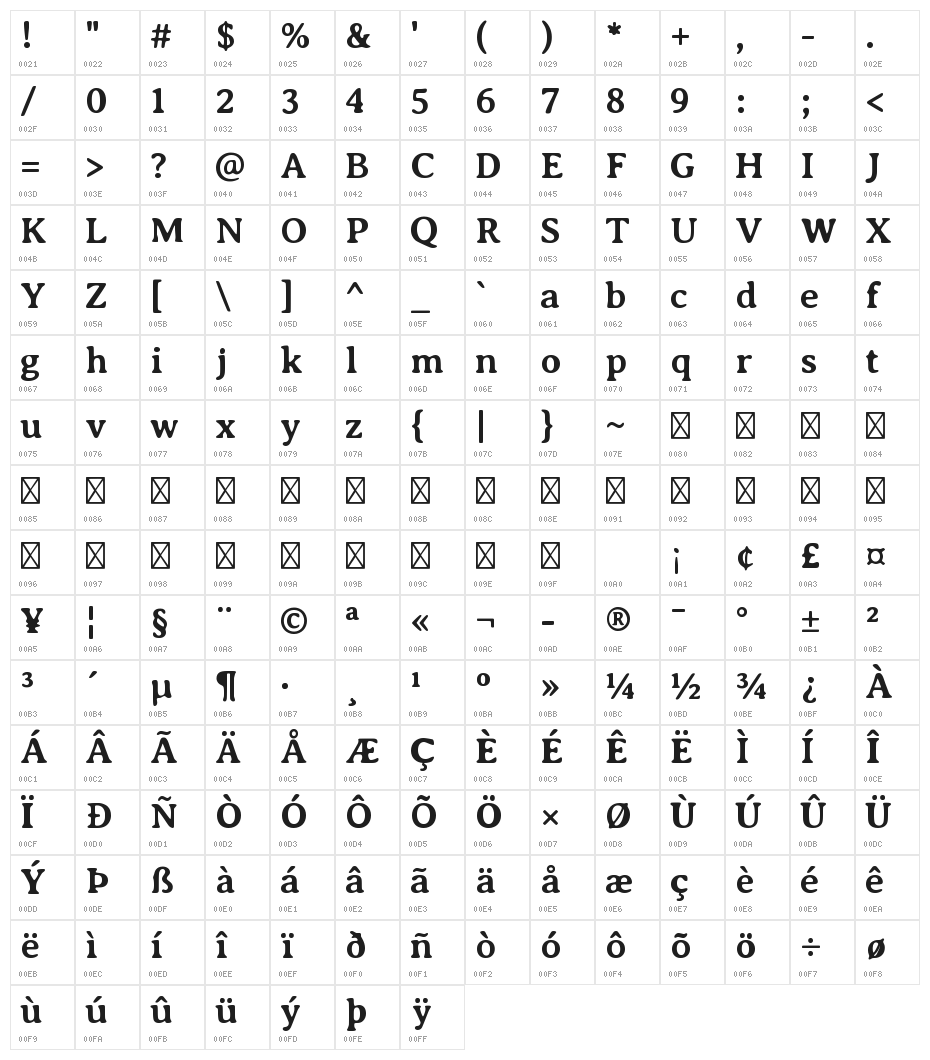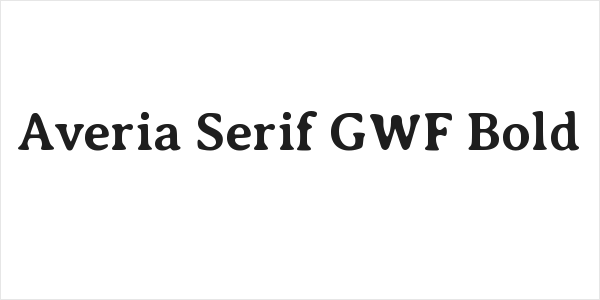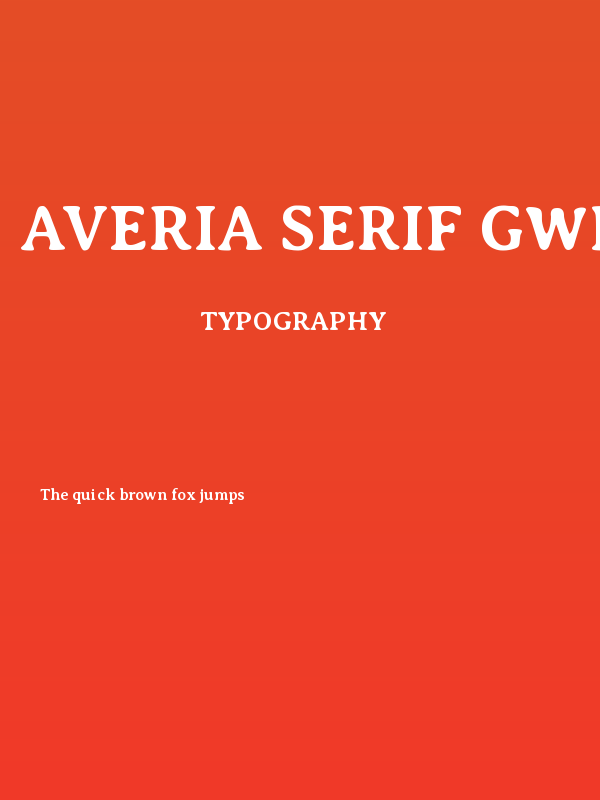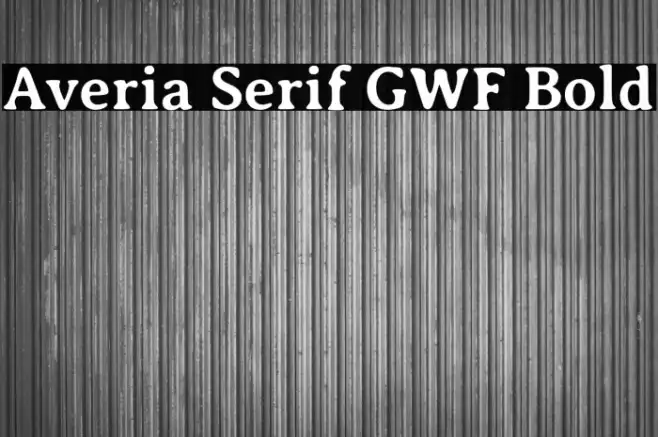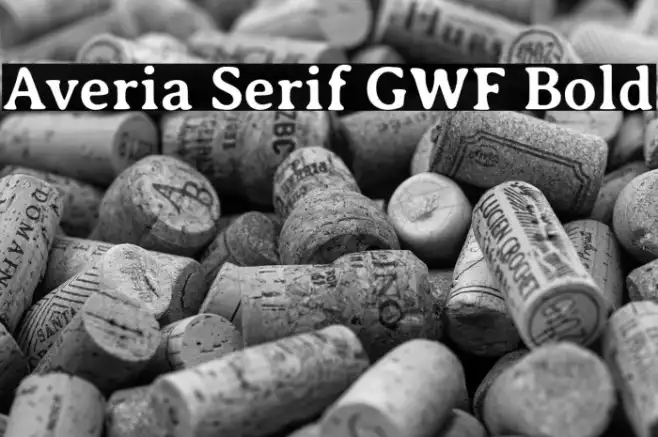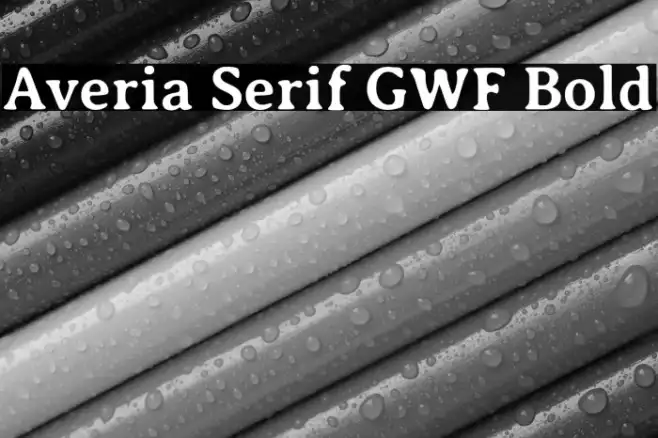
Averia Serif GWF Bold Font
Averia Serif GWF Bold Description
This font features a bold and rounded serif style, offering a friendly and approachable appearance. The characters are well-defined with smooth curves and a consistent stroke width, providing a harmonious and balanced look. The uppercase letters are slightly wider, giving a strong presence, while the lowercase letters maintain a uniform height, enhancing readability. The numerals are clear and distinct, making them suitable for various applications. Special characters are crafted with attention to detail, ensuring they blend seamlessly with the rest of the font. Overall, this font combines traditional serif elements with a modern twist, making it versatile for both digital and print media.